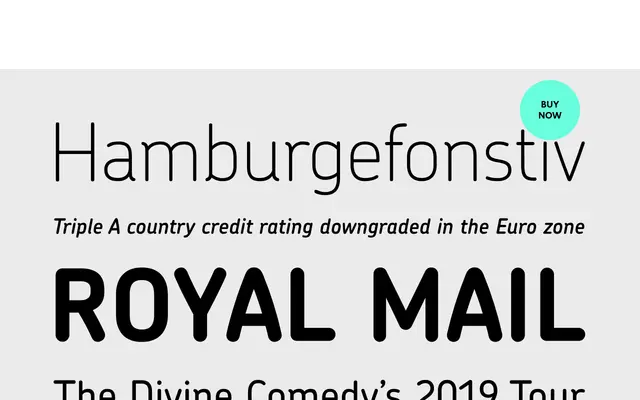
Chevin Std
A rounded humanist sans in six weights, designed for legibility at small sizes and signage, best known as Royal Mail's corporate typeface since 2007.
Chevin Std is the stripped-back variant of Chevin Pro, covering West European, Central and East European, Baltic and Turkish Latin scripts without the Greek, Cyrillic or small caps features of its larger sibling. Its open counters and slightly condensed proportions make it practical for both continuous text and wayfinding environments. Erik Spiekermann has noted its legibility in small sizes, attributing it to the typeface's restrained shapes and simple construction.
Chevin Std is a rounded, slightly condensed humanist sans-serif with open counters and restrained letterforms designed for legibility at text and signage sizes. Its functional construction and warm proportions place it firmly in the humanist sans tradition.